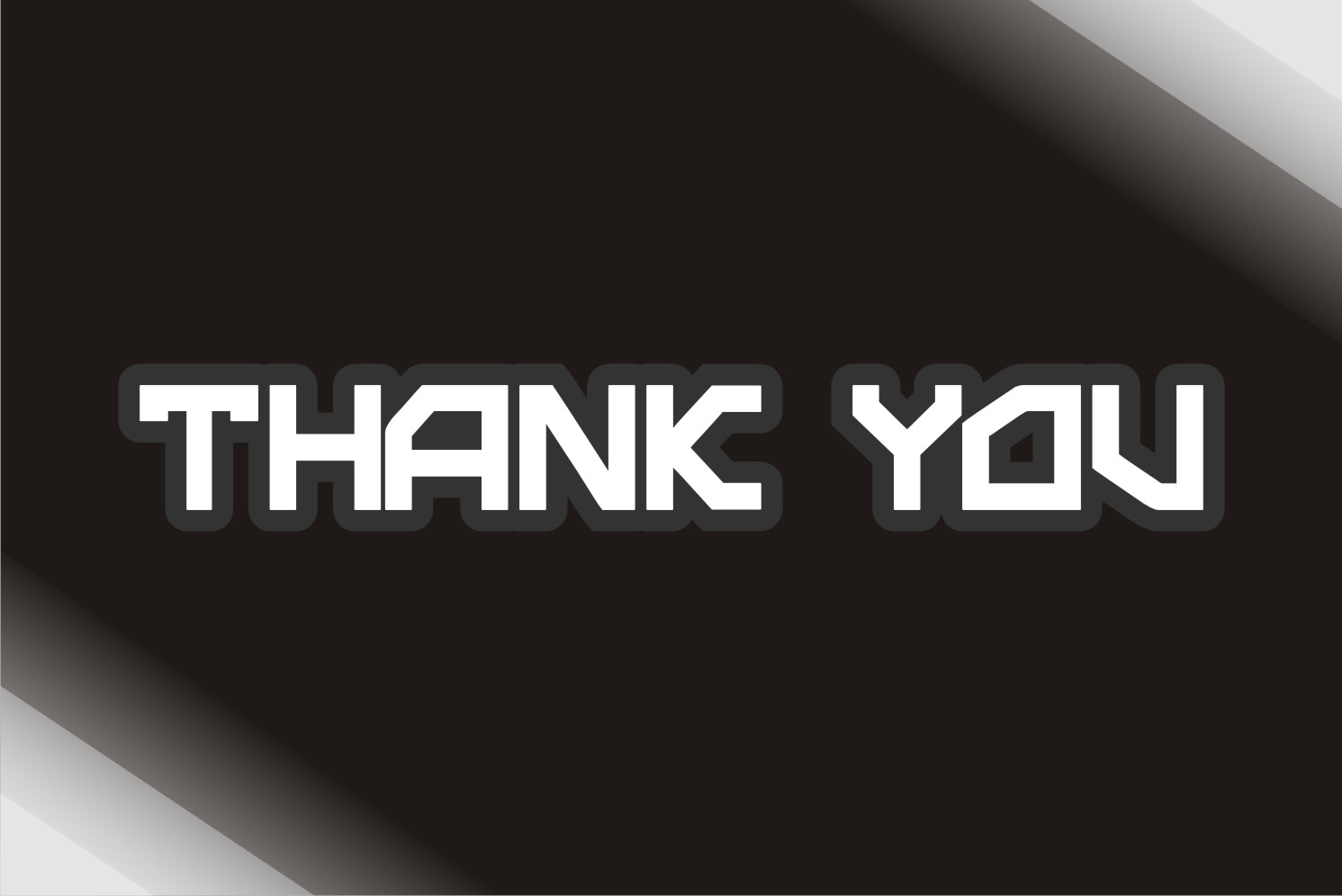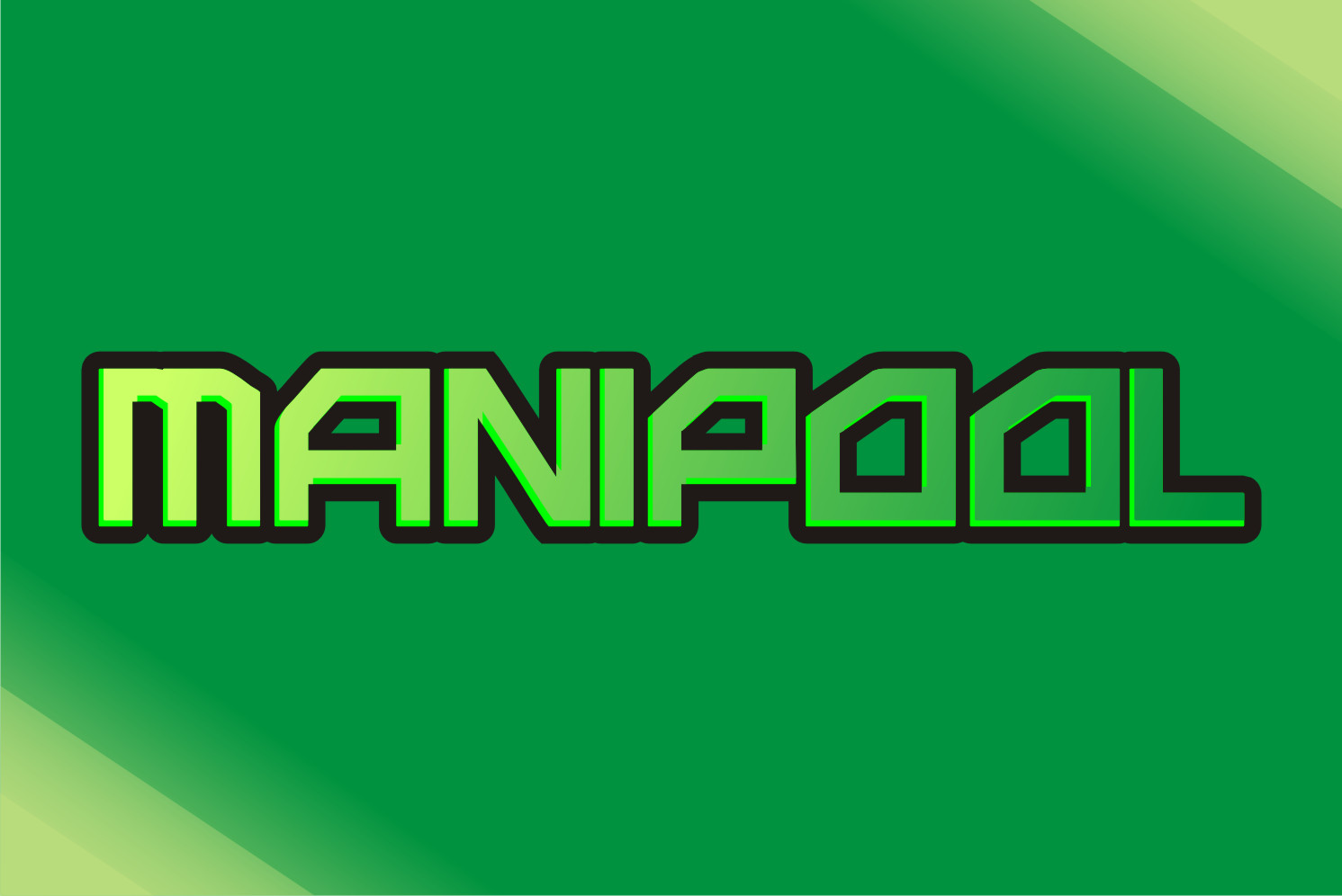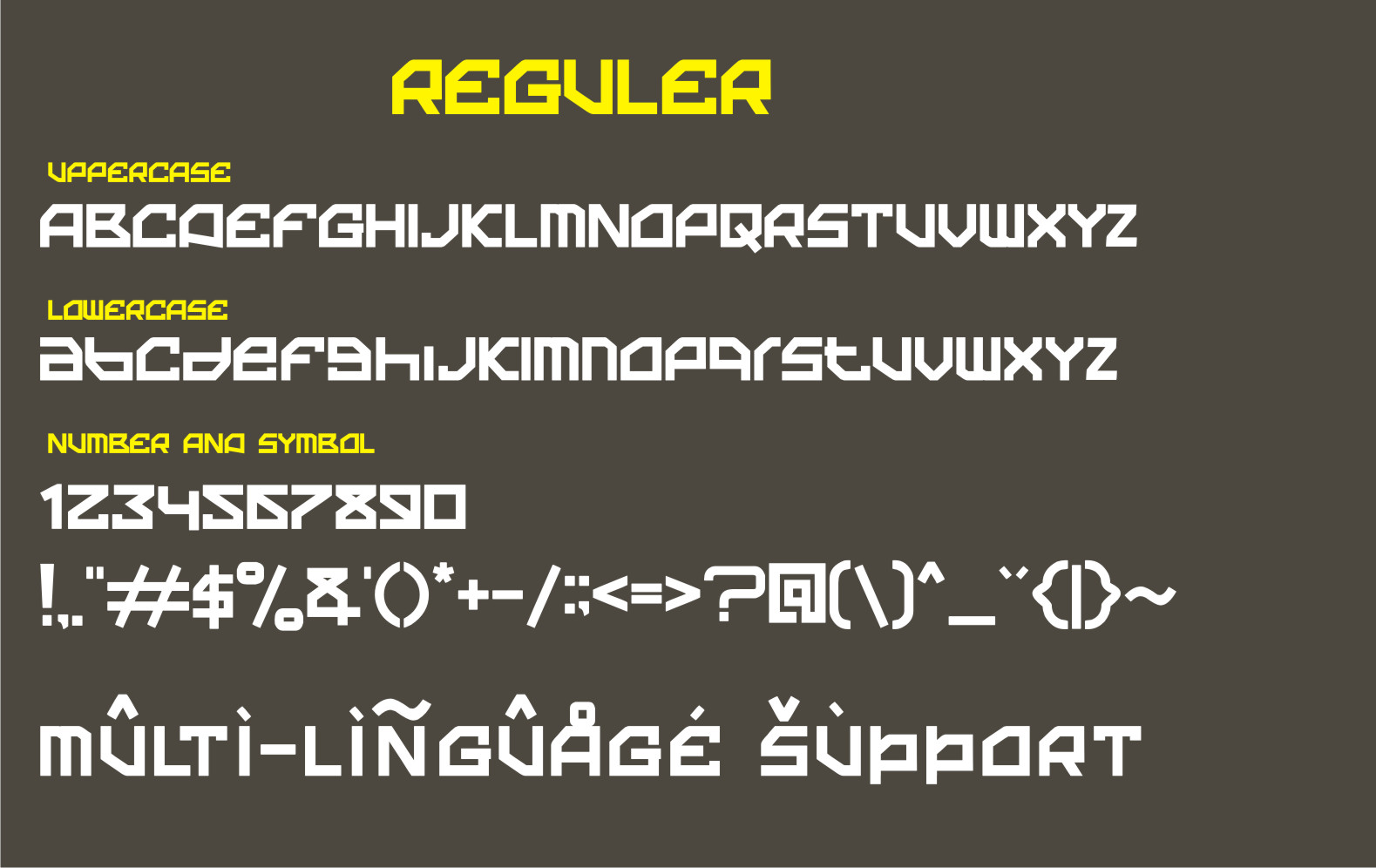
Gesso Font
Gesso Display Font
This is a cool and techno-looking display font. This font is ideal for writing web designs, business cards, or anything else that requires a futuristic, unique touch.